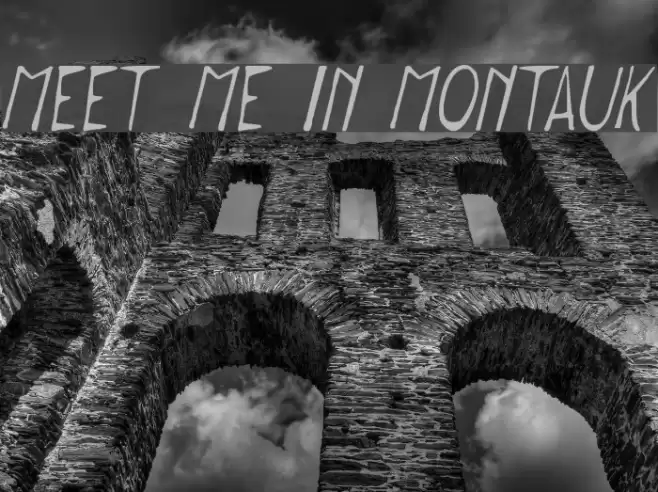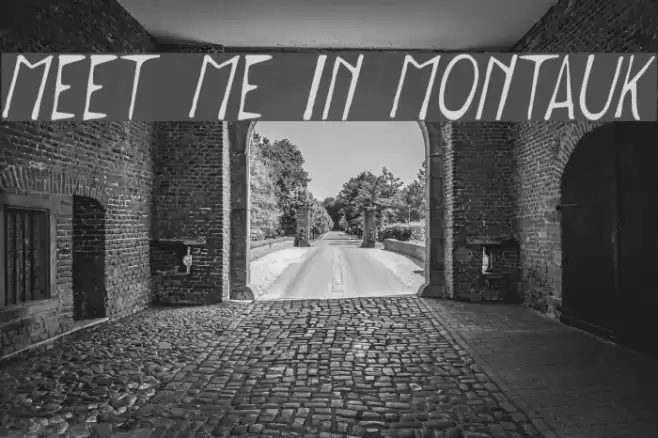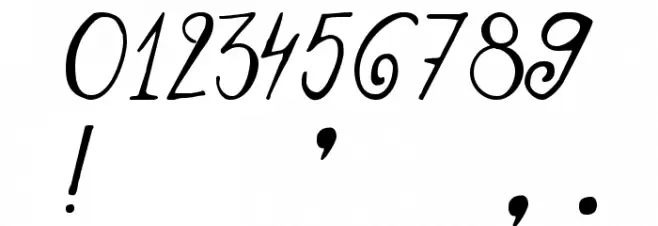
Meet me in Montauk Font
Meet me in Montauk Description
This font features a whimsical and playful design, characterized by its unique and slightly irregular letterforms. The uppercase letters exhibit a mix of straight and curved lines, with some characters incorporating decorative swirls, particularly noticeable in the 'Q' and 'G'. The lowercase letters maintain a similar style, offering a cohesive look. The numbers follow the same playful aesthetic, with certain digits like '6' and '9' having a distinctive loop. The special characters, including punctuation marks, are designed to match the overall quirky and artistic feel of the font. This typeface exudes a sense of creativity and individuality, making it stand out in any design project.
A whimsical and playful font with unique, irregular letterforms and decorative swirls from Uncategorized fonts.
- Proposed Projects: Ideal for creative projects such as children's book covers, playful branding, artistic posters, and invitations.
- Overall Style: Whimsical, Artistic